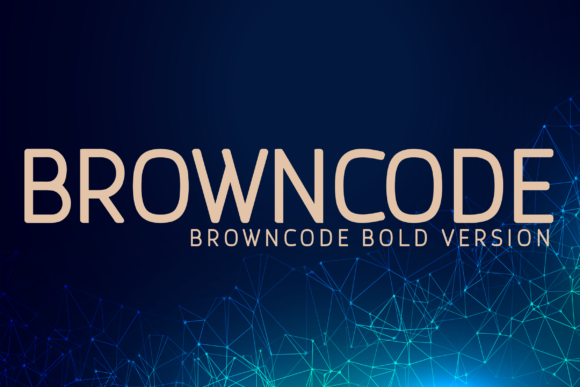
Browncode Bold Font: Elevate Your Design with Elegance and Clarity
In the realm of typography, a font can make or break the visual appeal of a design project. For designers and crafters seeking a stylish and elegant sans serif font that delivers on clarity and readability, Browncode Bold is an exceptional choice. This wonderfully crafted font boasts perfectly balanced letters, making it an ideal solution for conveying messages with style and precision.
The Characteristics of Browncode Bold
Browncode Bold is distinguished by its clean and modern sans serif design. The font’s sleek lines and balanced letterforms ensure that it remains highly legible, even at smaller sizes. This makes it versatile for a wide range of applications, from digital media and advertising to print materials and crafting projects.
Key Features of Browncode Bold Font
- Elegant Sans Serif Design: The font’s contemporary look is perfect for designs that require a touch of sophistication.
- Perfectly Balanced Letters: Ensures excellent readability and aesthetics, making your text both stylish and easy to read.
- Versatile: Suitable for various design projects, including logos, headings, and body text.
- Highly Legible: Maintains clarity even at smaller font sizes, making it ideal for a wide range of applications.
Applications of Browncode Bold
The versatility of Browncode Bold font makes it suitable for numerous design projects. Here are some of the areas where this font truly shines:
Digital Media
In the digital realm, font choice can significantly impact user experience. Browncode Bold, with its clean and modern appearance, is perfect for website headings, blog posts, and social media graphics. It helps in creating a professional and engaging online presence.
Print Materials
For print materials such as brochures, posters, and business cards, Browncode Bold offers a stylish and readable solution. Its elegant design ensures that your printed materials stand out and leave a lasting impression.
Crafting and DIY Projects
Crafters and DIY enthusiasts can also benefit from using Browncode Bold in their projects. Whether it’s for making inspirational quotes, journal entries, or decorative signs, this font adds a touch of elegance and professionalism to handmade crafts.
Tips for Using Browncode Bold Effectively
To maximize the potential of Browncode Bold in your designs, consider the following tips:
- Pair with Complementary Fonts: Combine Browncode Bold with simpler sans serif or serif fonts for body text to create visual hierarchy and contrast.
- Adjust Font Sizes: Use varying font sizes to emphasize headings and subheadings, ensuring your content is both readable and engaging.
- Utilize Color Contrasts: Choose text colors that provide sufficient contrast with the background to enhance readability and make your design pop.
- Limit Text Blocks: Keep paragraphs short and concise to maintain reader interest and improve the overall flow of your content.
Browncode Bold font is a versatile and stylish addition to any designer’s toolkit. Its elegant sans serif design, perfectly balanced letters, and high legibility make it an excellent choice for a wide range of projects. Whether you’re working on digital media, print materials, or crafting and DIY projects, Browncode Bold can help you deliver your message with clarity, style, and absolute readability. Embrace the elegance and versatility of Browncode Bold to elevate your designs and make a lasting impact on your audience.